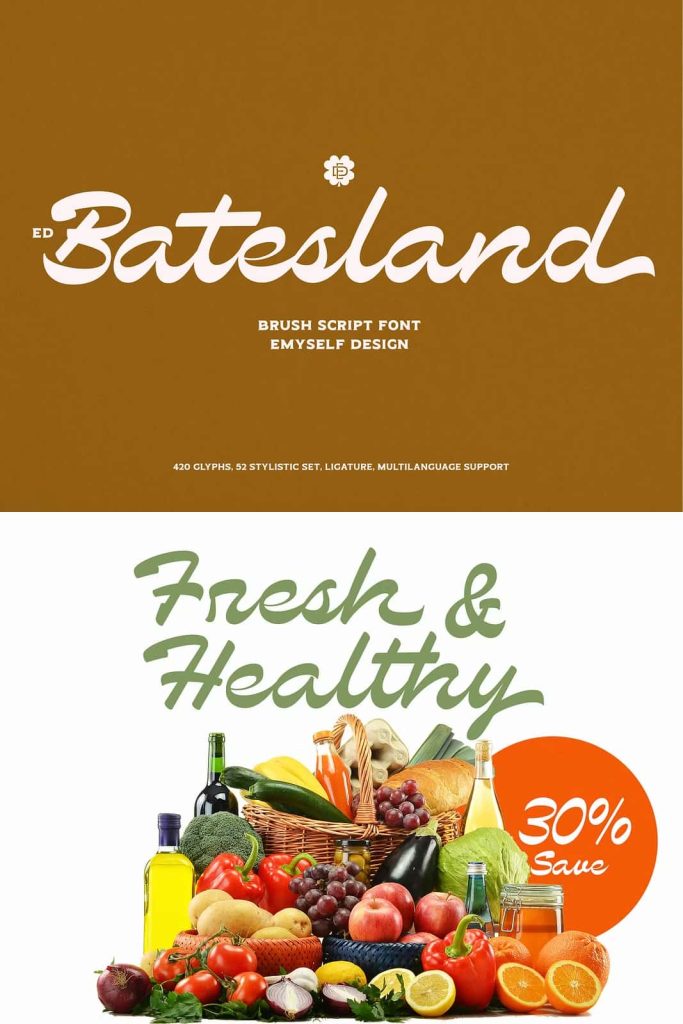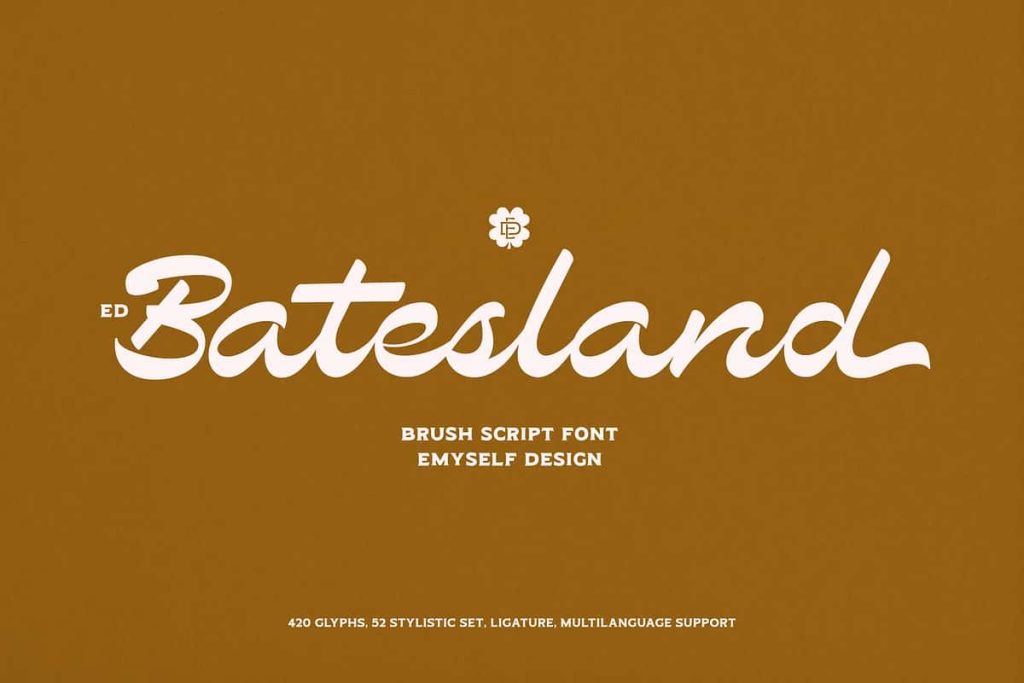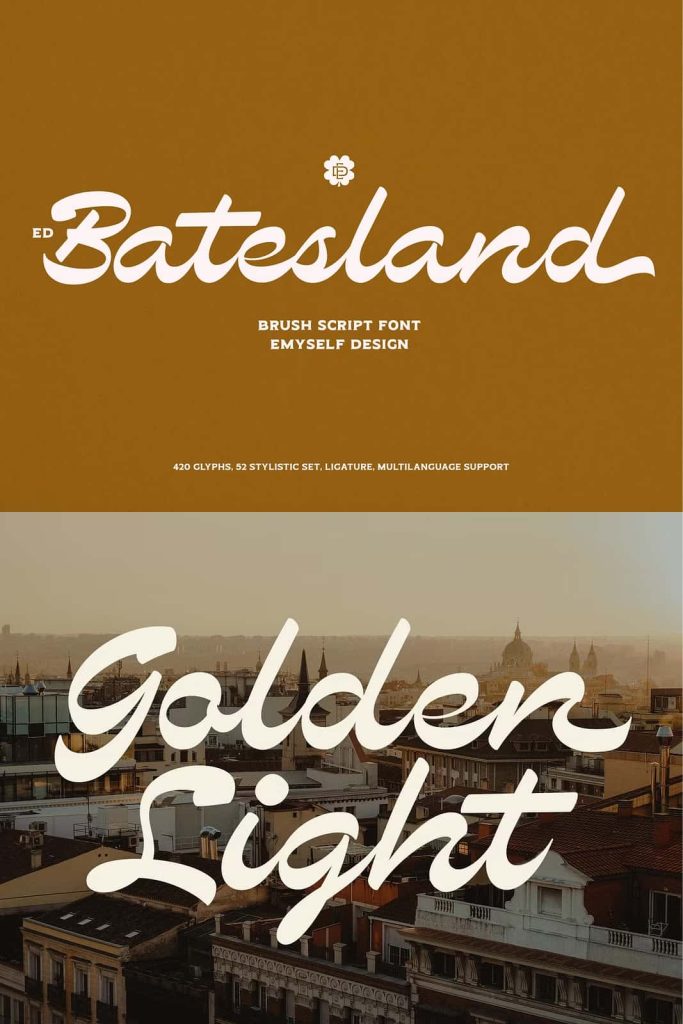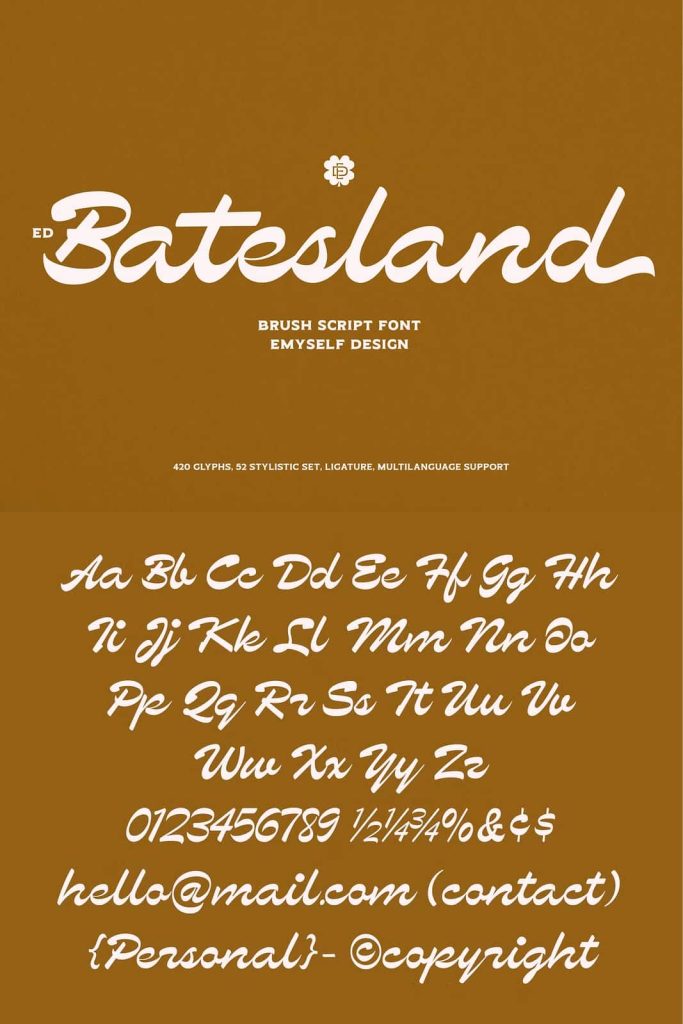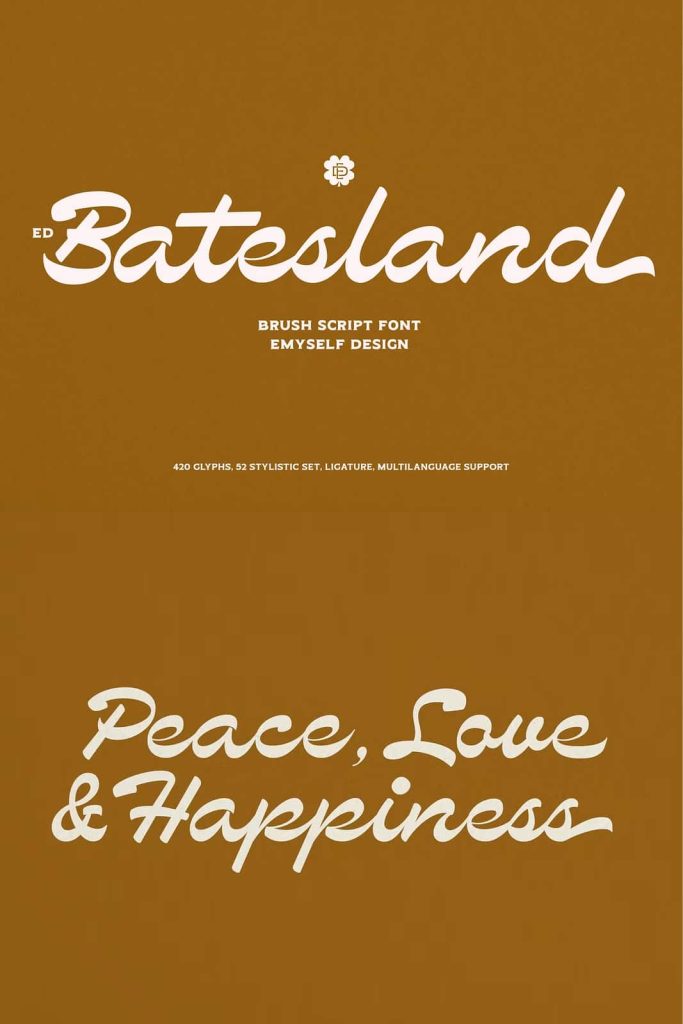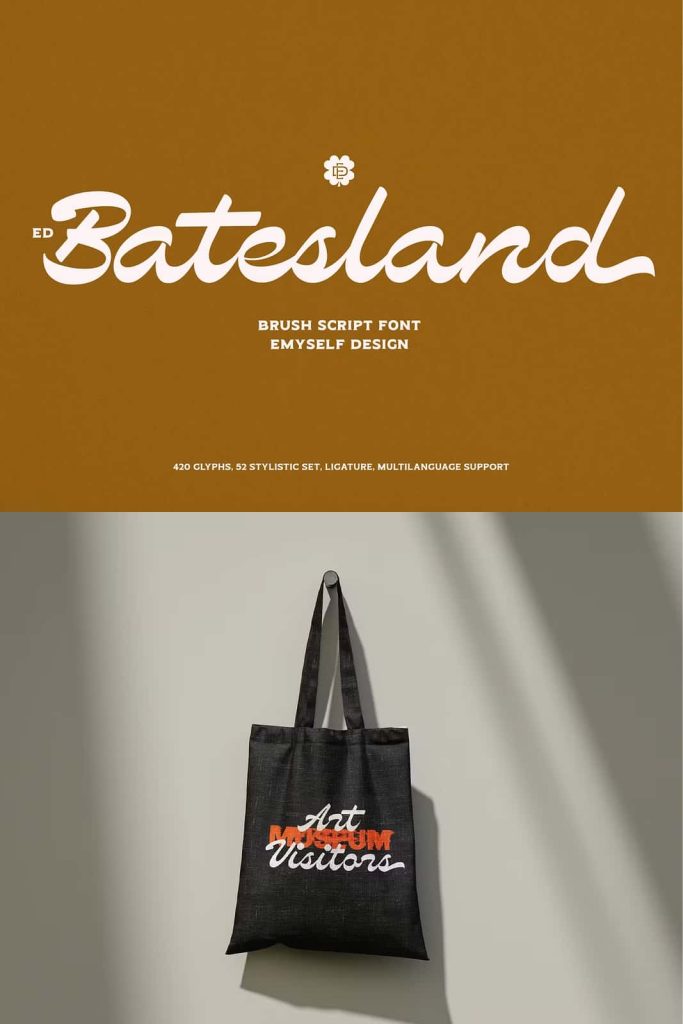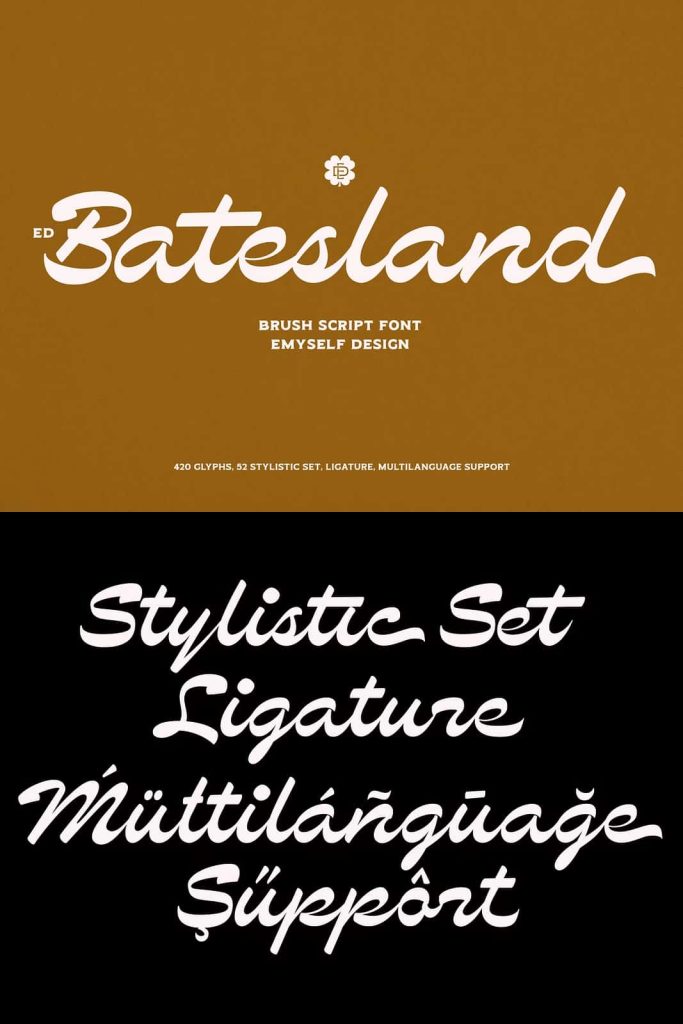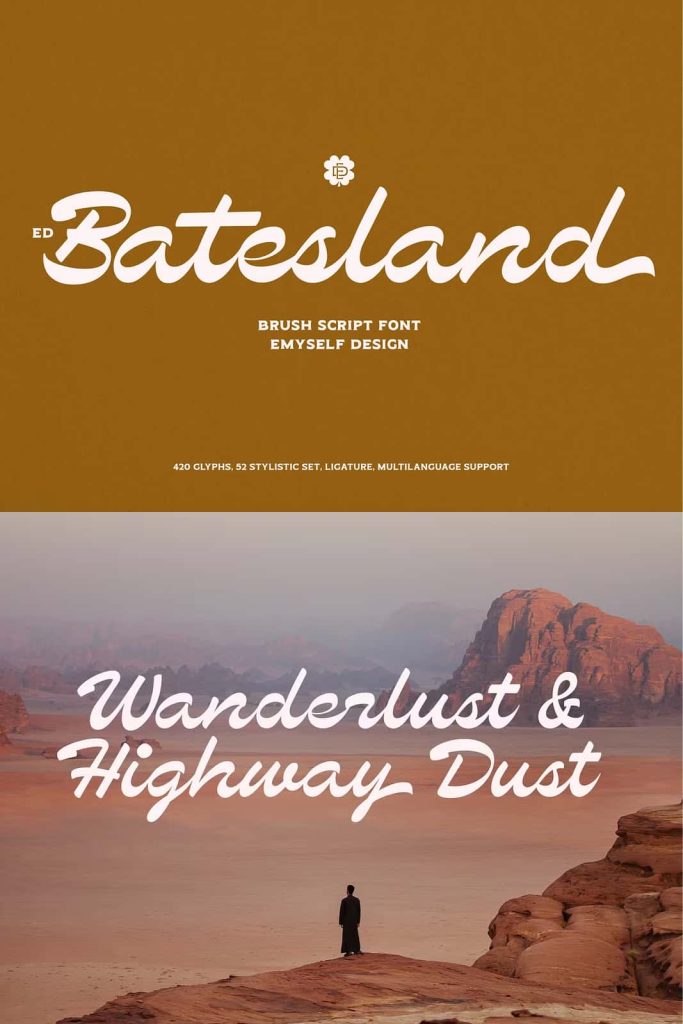
Batesland is a brush script font with a classic style. This font is also equipped with 52 stylistic sets, ligatures, and multi-language support which further adds to the creativity in using this font.
This font is perfect for your creative projects such as Logotype, printed quotes, invitations, cards, product packaging, headers, Letterhead, Apparel, Web design, Magazine, Book, etc.